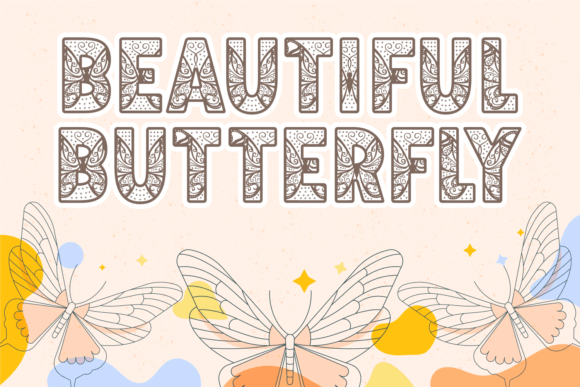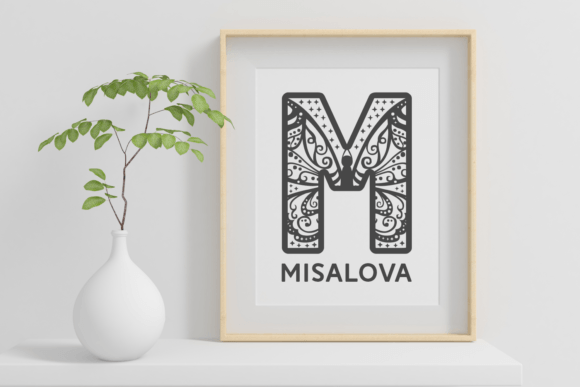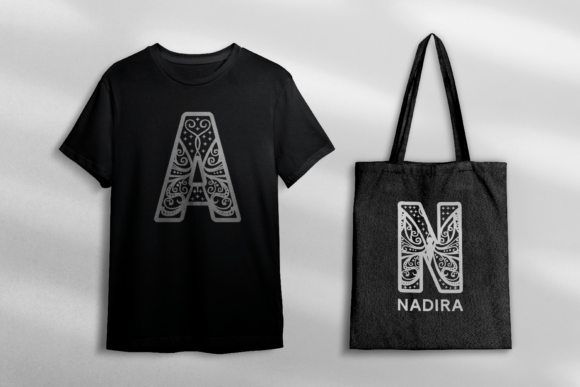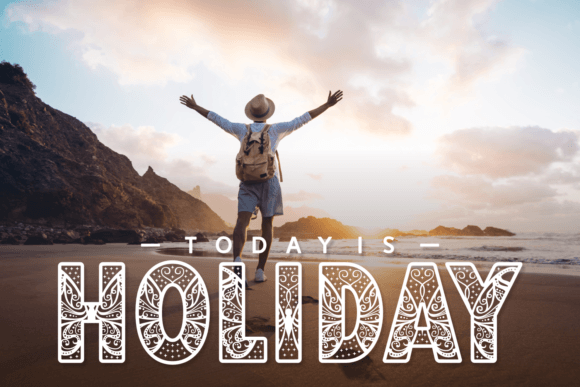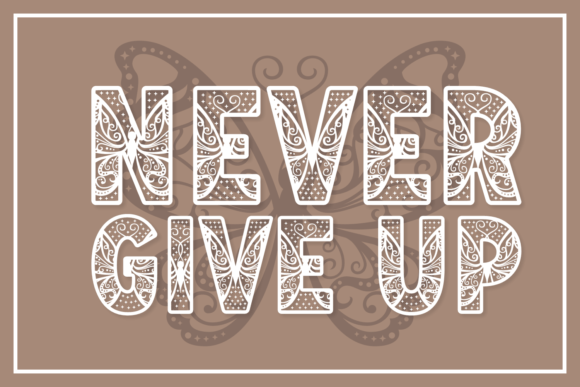
Introducing Angela Beauty Font: Elevate Your Designs with a Touch of Elegance
Are you a designer or crafter looking for a unique and captivating font to add a touch of femininity to your typography designs? Look no further than Angela Beauty Font, a gorgeous decorative font that incorporates abstract butterfly elements. With its delicate and elegant appearance, this lovely typeface is sure to take your designs to the next level.
What is Angela Beauty Font?
Angela Beauty Font is a decorative font that features intricate and abstract butterfly elements, giving it a whimsical and romantic feel. The font is designed to add a touch of elegance and sophistication to any design, making it perfect for a variety of projects, from wedding invitations and branding materials to social media graphics and craft projects.
Key Features of Angela Beauty Font
- Unique and eye-catching design: The abstract butterfly elements in Angela Beauty Font make it stand out from other fonts, adding a touch of personality to your designs.
- Feminine and delicate: The font’s elegant appearance makes it perfect for designs that require a feminine touch, such as wedding invitations, feminine branding, and more.
- High-quality and versatile: Angela Beauty Font is designed to be versatile and can be used for a variety of projects, from digital designs to print materials.
- Easily customizable: The font can be easily customized to fit your design needs, allowing you to adjust the size, color, and style to match your brand’s aesthetic.
How to Use Angela Beauty Font in Your Designs
Angela Beauty Font can be used in a variety of design projects, including:
- Wedding invitations and stationery: Add a touch of elegance and romance to your wedding invitations and stationery with Angela Beauty Font.
- Feminine branding and packaging: Use the font to create beautiful and feminine branding and packaging materials that reflect your brand’s personality.
- Social media graphics: Elevate your social media graphics with Angela Beauty Font, making your posts stand out from the crowd.
- Craft projects and DIY: Use the font to add a personal touch to your craft projects and DIY designs, such as handmade cards and gift tags.
Why Choose Angela Beauty Font?
With so many fonts available, why choose Angela Beauty Font? Here are just a few reasons:
- Unique and exclusive: Angela Beauty Font is a one-of-a-kind font that will make your designs stand out from the crowd.
- High-quality design: The font is designed with high-quality and attention to detail, ensuring that it looks great in any design.
- Easily readable: Despite its decorative nature, Angela Beauty Font is easily readable, making it perfect for body text and headlines.
Tips and Tricks for Using Angela Beauty Font
Here are a few tips and tricks for getting the most out of Angela Beauty Font:
- Pair with a simple font: Pair Angela Beauty Font with a simple font to create a beautiful contrast and add visual interest to your design.
- Experiment with colors: Try out different colors and gradients to add depth and dimension to your design.
- Use it sparingly: Use Angela Beauty Font sparingly to create a focal point in your design and avoid overwhelming the viewer.
Angela Beauty Font is a stunning decorative font that adds a touch of elegance and femininity to any design. With its unique and eye-catching design, high-quality construction, and versatility, it’s perfect for designers and crafters looking to elevate their typography designs. Whether you’re working on a wedding invitation, branding materials, or social media graphics, Angela Beauty Font is sure to make your designs stand out from the crowd.